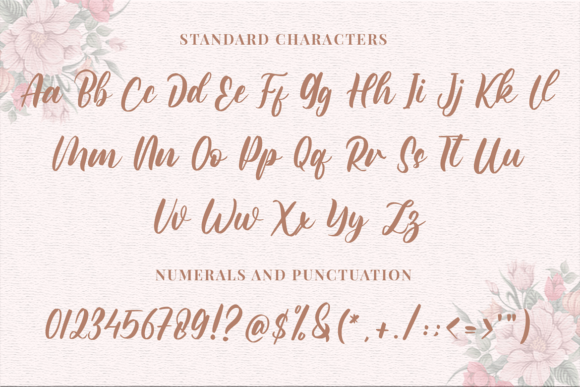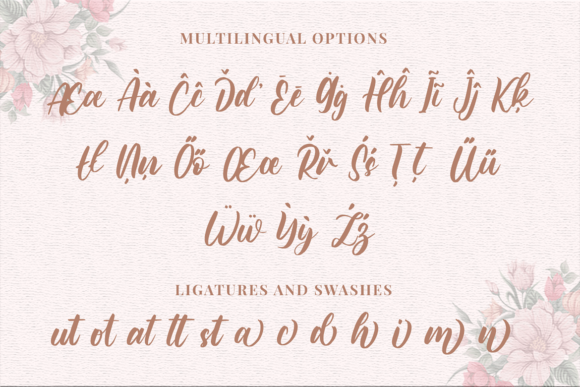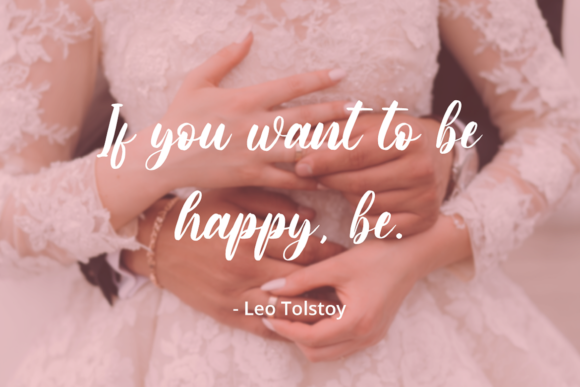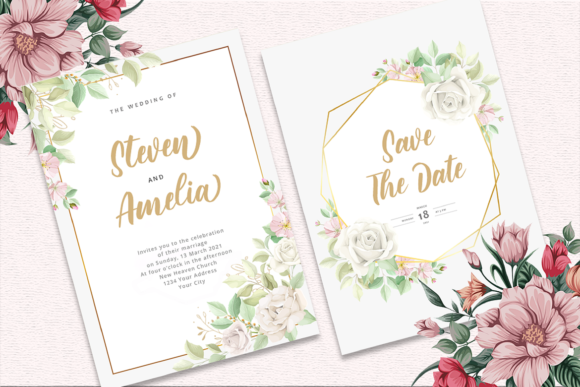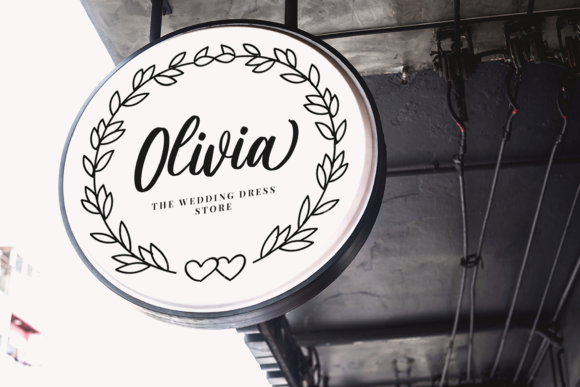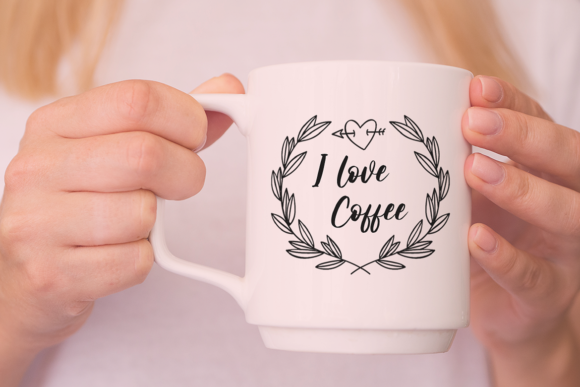
Discover the Elegance of Elizabeth Font: A Delicate Handwritten Masterpiece
Are you a designer or crafter looking for a font that exudes elegance and sophistication? Look no further than the Elizabeth font, a delicate and handwritten typeface that is sure to capture your heart. With its distinct and well-rounded letters, Elizabeth is a masterpiece that can elevate any design project to new heights.
The Characteristics of Elizabeth Font
Elizabeth font is a handwritten typeface that boasts a unique and versatile style. Its letters are carefully crafted to be both delicate and elegant, making it perfect for a wide range of design applications. Whether you’re creating a wedding invitation, a branding campaign, or a digital product, Elizabeth font is sure to add a touch of sophistication and refinement.
One of the standout features of Elizabeth font is its well-rounded letters. Each letterform is meticulously designed to be both aesthetically pleasing and highly legible. The font’s x-height is carefully proportioned to create a beautiful balance between the uppercase and lowercase letters, making it easy to read and understand.
The Versatility of Elizabeth Font
Elizabeth font is incredibly versatile, making it suitable for a wide range of design projects. Its delicate and elegant style makes it perfect for:
• Branding campaigns and logos
• Digital products and websites
• Packaging and product design
Whether you’re creating a formal or informal design, Elizabeth font is sure to add a touch of elegance and sophistication. Its versatility also makes it a great choice for designers who want to create a cohesive brand identity across multiple platforms.
Why Designers and Crafters Love Elizabeth Font
So, why do designers and crafters love Elizabeth font? Here are just a few reasons:
• Elegance and sophistication: Elizabeth font exudes elegance and sophistication, making it perfect for designs that require a high level of refinement.
• Versatility: Elizabeth font is incredibly versatile, making it suitable for a wide range of design projects.
• Legibility: The font’s well-rounded letters and carefully proportioned x-height make it easy to read and understand.
• Uniqueness: Elizabeth font has a unique and distinctive style that sets it apart from other fonts.
Tips for Using Elizabeth Font in Your Designs
Here are a few tips for using Elizabeth font in your designs:
• Pair it with bold fonts: Elizabeth font pairs beautifully with bold fonts, creating a striking contrast that adds visual interest to your design.
• Use it for headings and titles: Elizabeth font is perfect for headings and titles, where its elegance and sophistication can really shine.
• Experiment with colors: Elizabeth font looks great in a range of colors, from soft pastels to rich jewel tones.
• Don’t be afraid to get creative: Elizabeth font is a versatile font that can be used in a wide range of design applications, so don’t be afraid to get creative and try new things!
In conclusion, Elizabeth font is a delicate and elegant handwritten font that is sure to capture the hearts of designers and crafters. Its distinct and well-rounded letters make it a masterpiece that can elevate any design project to new heights. With its versatility, legibility, and uniqueness, Elizabeth font is a great choice for a wide range of design applications. So why not fall in love with Elizabeth font and use it to create spectacular designs that showcase your creativity and style?